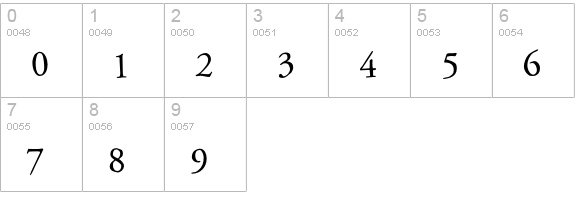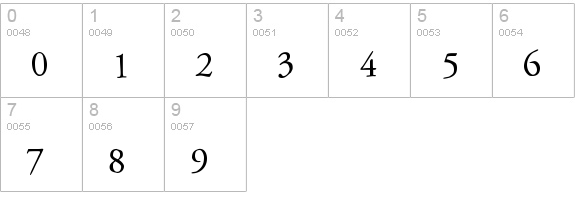
P22Garamouche-Regular Font Details
P22Garamouche-Regular is the standard, neutral variant in the P22Garamouche typeface family \xE2\x80\x94 well suited to general body text, paragraphs, and standard typographic work.
P22Garamouche-Regular is a stunning and versatile font that will surely catch the eye of any designer or typographer. With its elegant and sophisticated curves, this font exudes a sense of timeless beauty and modernity. Created by the talented designer, P22 Type Foundry, this font is a perfect blend of classical elegance and contemporary design. It is suitable for a wide range of design projects, from branding and logos to invitations and editorial layouts. P22Garamouche-Regular is not only visually appealing but also highly legible, making it an excellent choice for both print and digital mediums. Its well-balanced letterforms and clean lines ensure readability at any size or resolution. One of the best parts about P22Garamouche-Regular is that it is free! Yes, you heard it right. This amazing font is freely available to download at FontsMarket.com. So, whether you are a professional designer or a hobbyist, you can enjoy using this font without any cost. With its extensive character set, including uppercase and lowercase letters, numbers, punctuation, and special characters, P22Garamouche-Regular offers endless possibilities for creative expression. It also supports multiple languages, making it a truly versatile font for global projects. So, why wait? Go ahead and experience the beauty and versatility of P22Garamouche-Regular. Download it for free today at FontsMarket.com and let your creativity shine with this exceptional font.